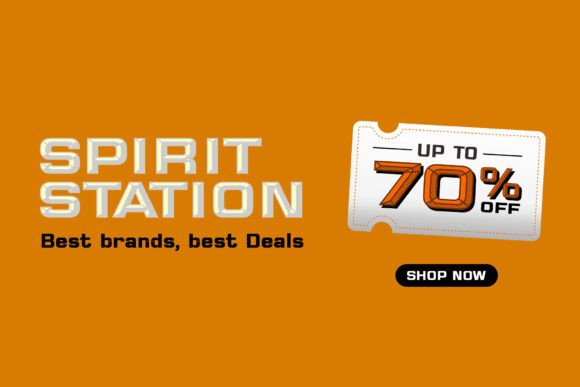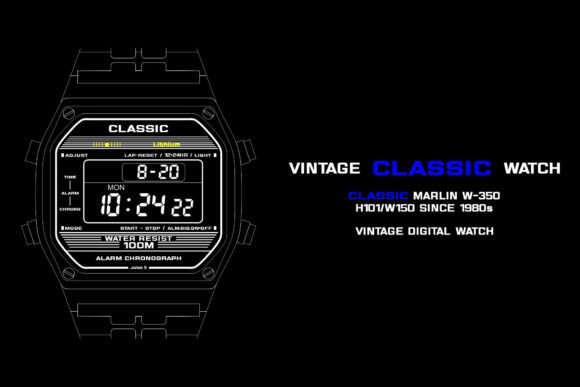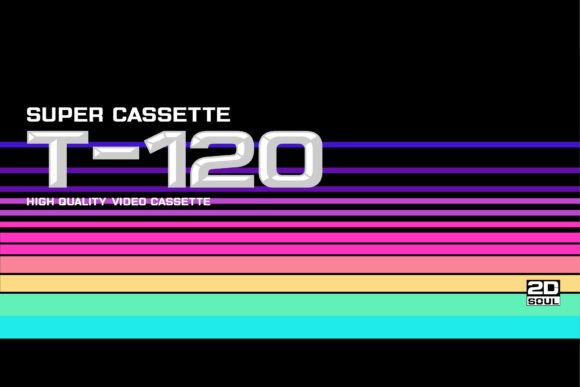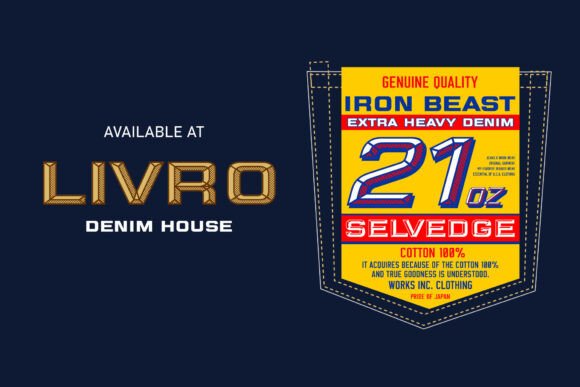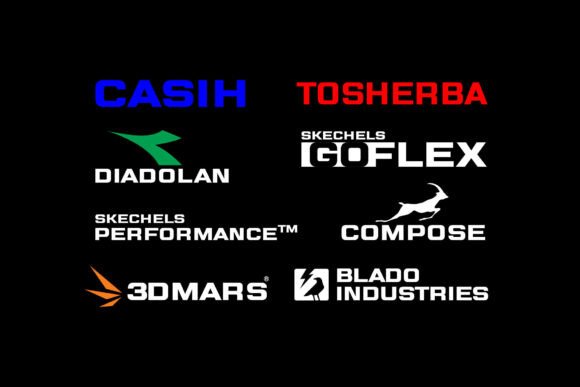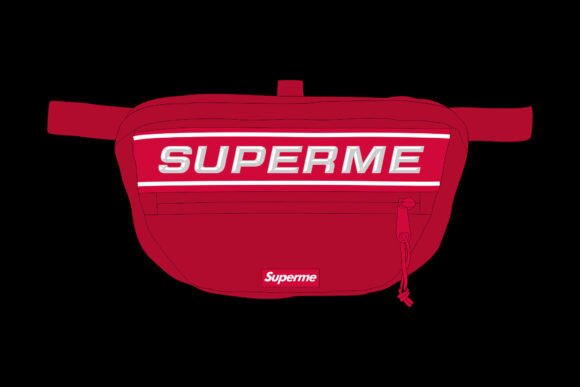
The Perfect Blend: Introducing Eurostolen Font
Have you ever found yourself lost in the world of typography, searching for that perfect font to bring your design to life? I know I have. It’s that moment when the pixels align, and your creative vision starts to take shape. For designers, finding the right font can be a game-changer – and that’s exactly what the Eurostolen Font aims to do.
Originally inspired by the legendary Eurostile typeface, Eurostolen Font offers a modern twist with three unique variations. Each can be used effectively on its own or layered for a truly one-of-a-kind effect. This versatile font is a valuable tool for designers looking to add a touch of sophistication and elegance to their work.
Eurostolen Font Key Features
- Font Family: Eurostolen
- Unique Characteristics: Eurostolen features a unique blend of modern and vintage elements, with a focus on clean lines and elegant typography
Designer Review: Eurostolen Font
Overall, I think the Eurostolen Font has some great qualities, but it also has some limitations that hold it back.
- The Eurostolen Font has a unique, modern aesthetic that can add a touch of sophistication to any design project.
- The font’s geometric shapes and clean lines make it highly legible, even at small font sizes.
- The font’s versatility allows it to be used in a wide range of applications, from corporate branding to digital interfaces.
- The Eurostolen Font may not be the best choice for projects that require a lot of emphasis or drama, as it can come across as somewhat sterile or cold.
- The font’s lack of ornamental flourishes or decorative elements can make it feel a bit bland or uninspired in certain contexts.
- The font’s geometric shape can make it difficult to use in certain languages or scripts that require more fluid or organic letterforms.
The Eurostolen Font is a solid, professional choice for designers who want a clean and modern look without too much flair. While it may not be the best fit for every project, it’s definitely worth considering for projects that require a sleek and sophisticated aesthetic.
Tips for Getting the Most Out of Eurostolen Font
Use the Eurostolen Font for titles and headings to add a touch of elegance and sophistication to your designs. Experiment with different font sizes and styles to create visual interest.
The Eurostolen Font is ideal for:
- Magazine and book covers